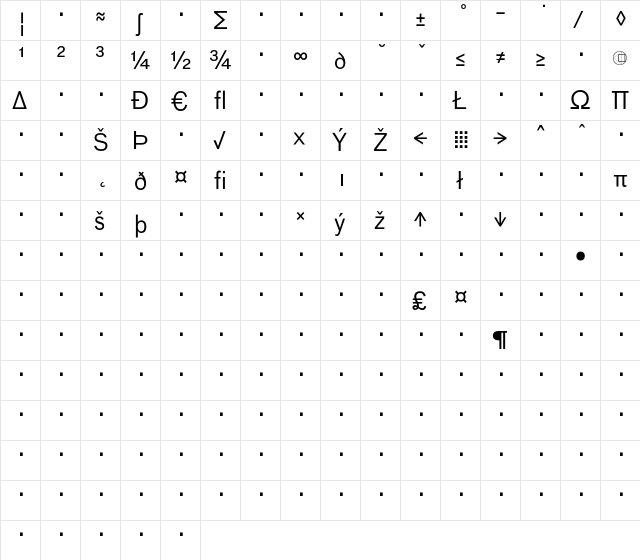
BauLF-RegularExpert Regular
Design Context for BauLF-RegularExpert Typeface
BauLF-RegularExpert is a composed and adaptable typeface that performs quietly and consistently across a wide range of design contexts.